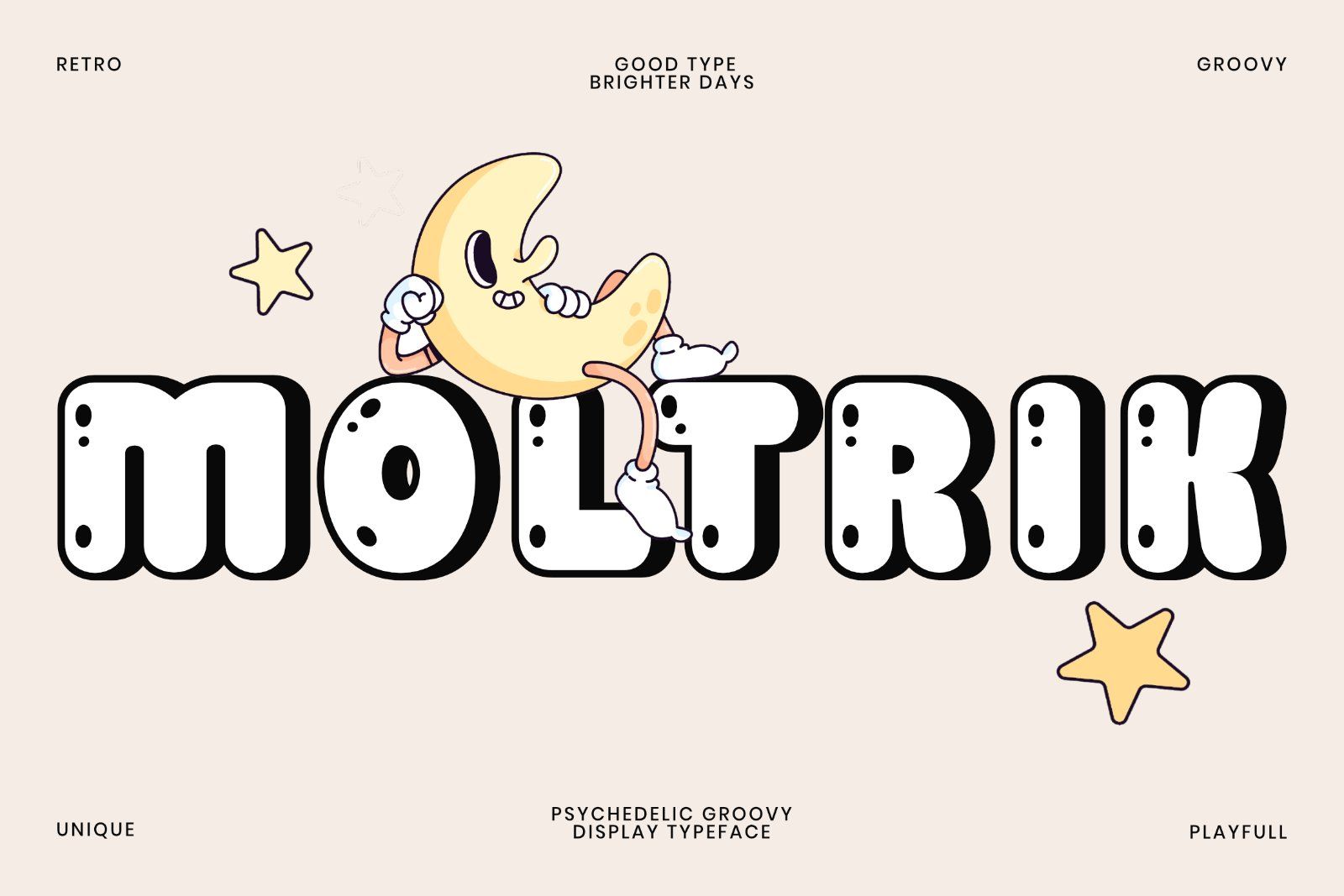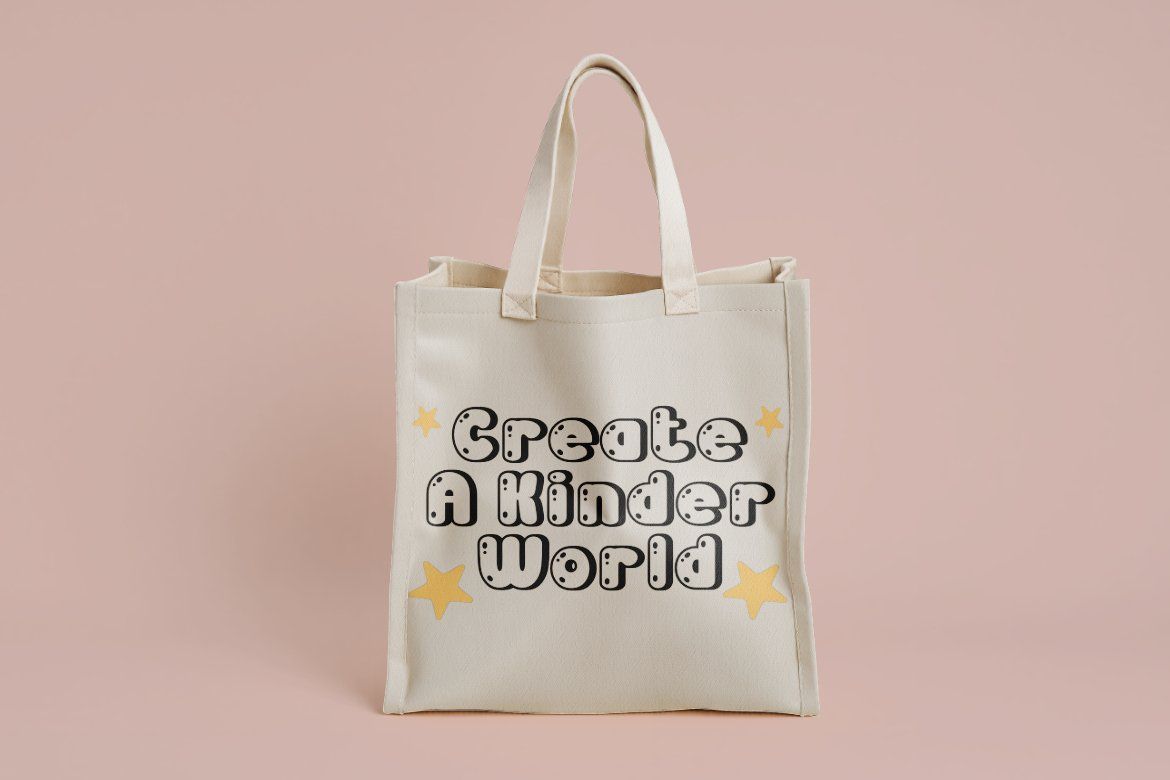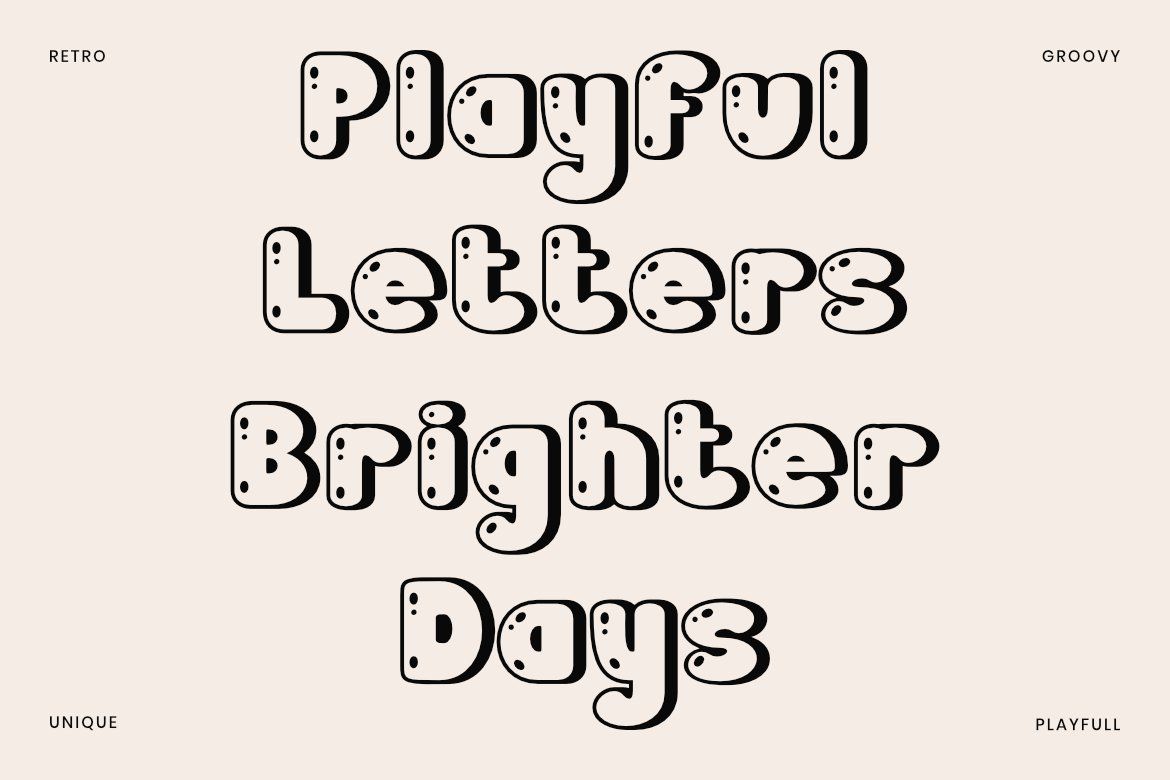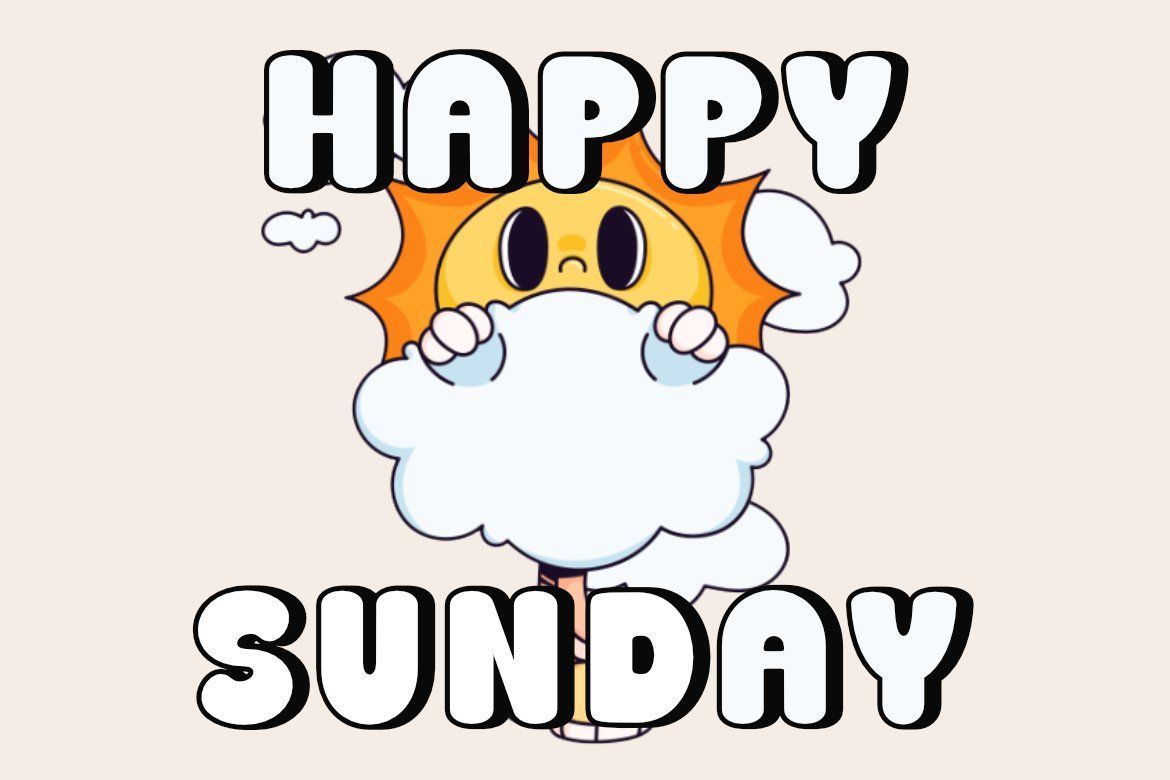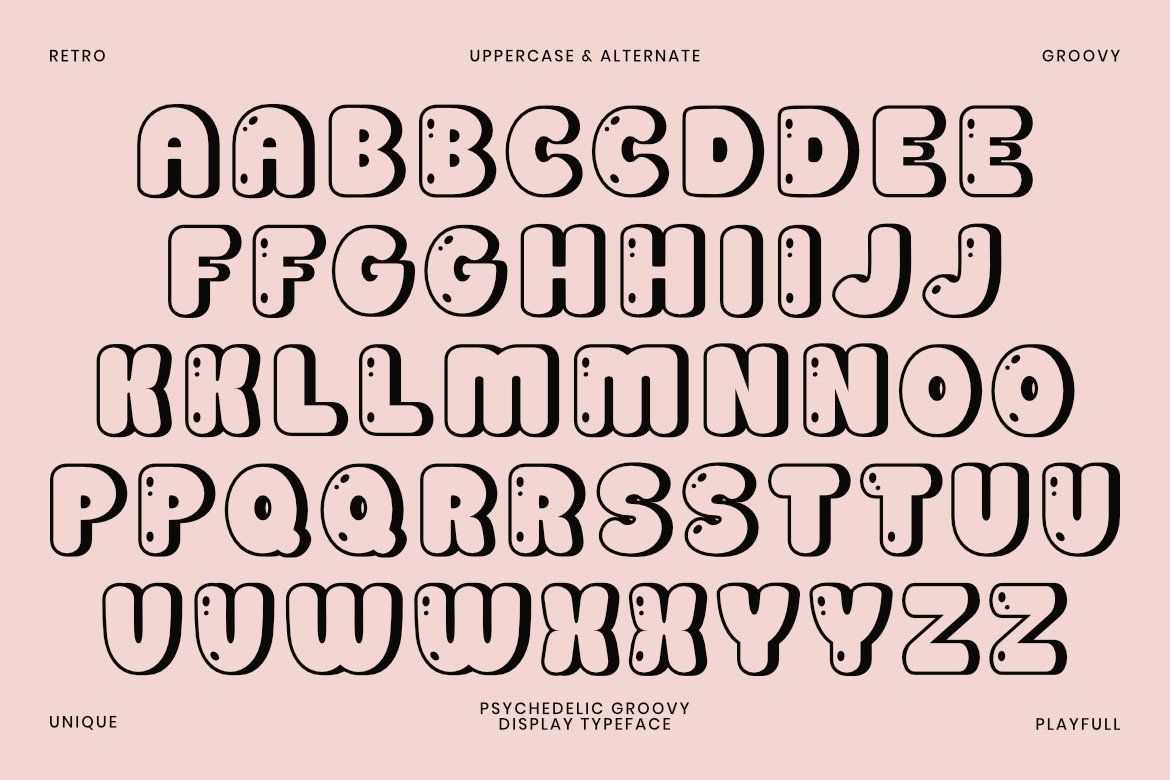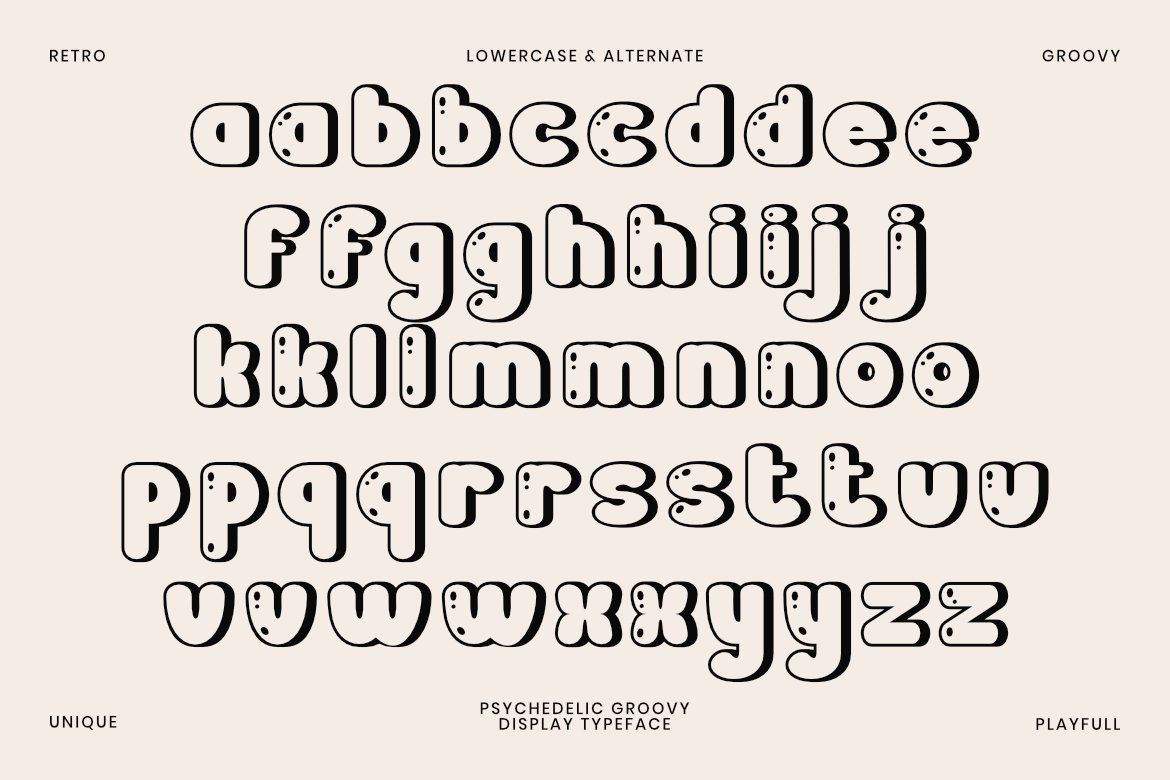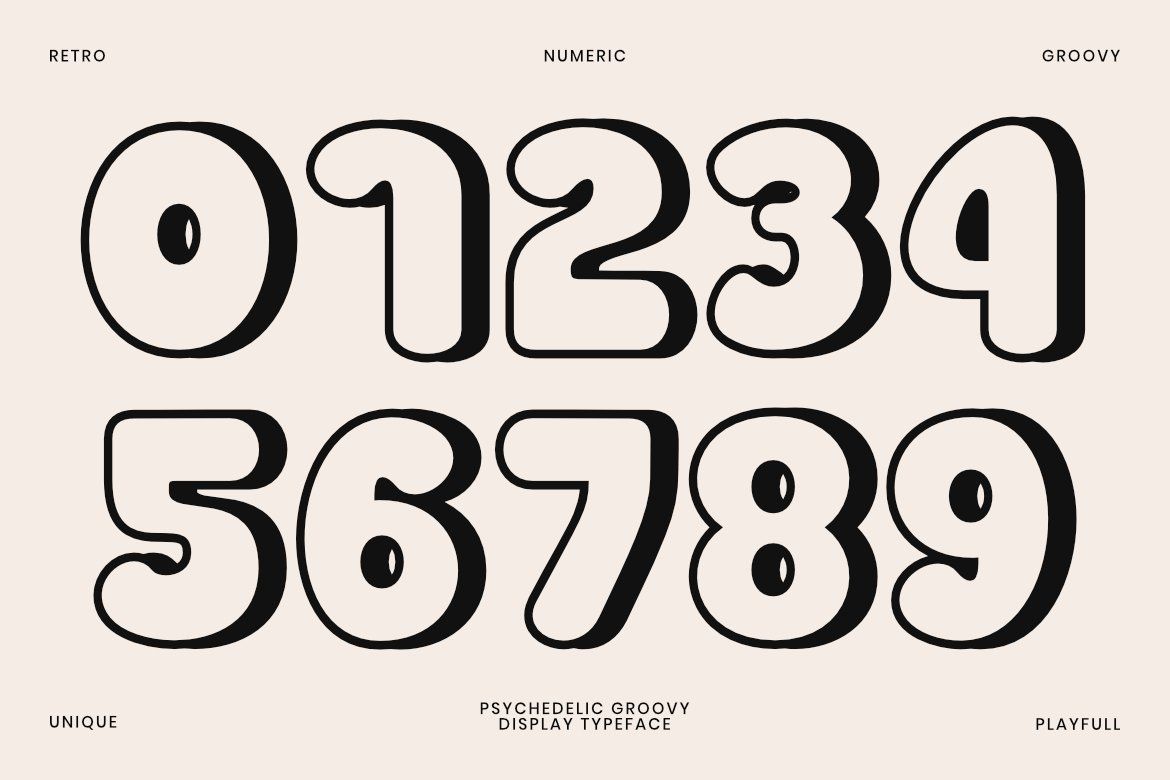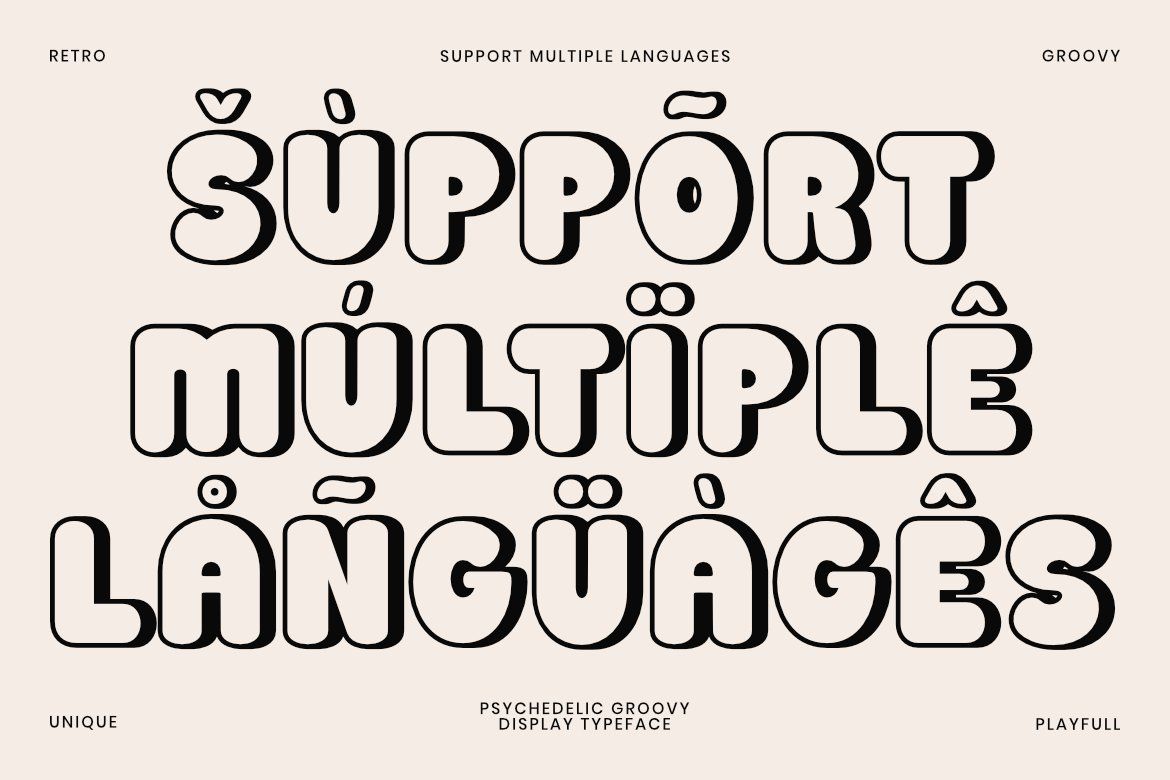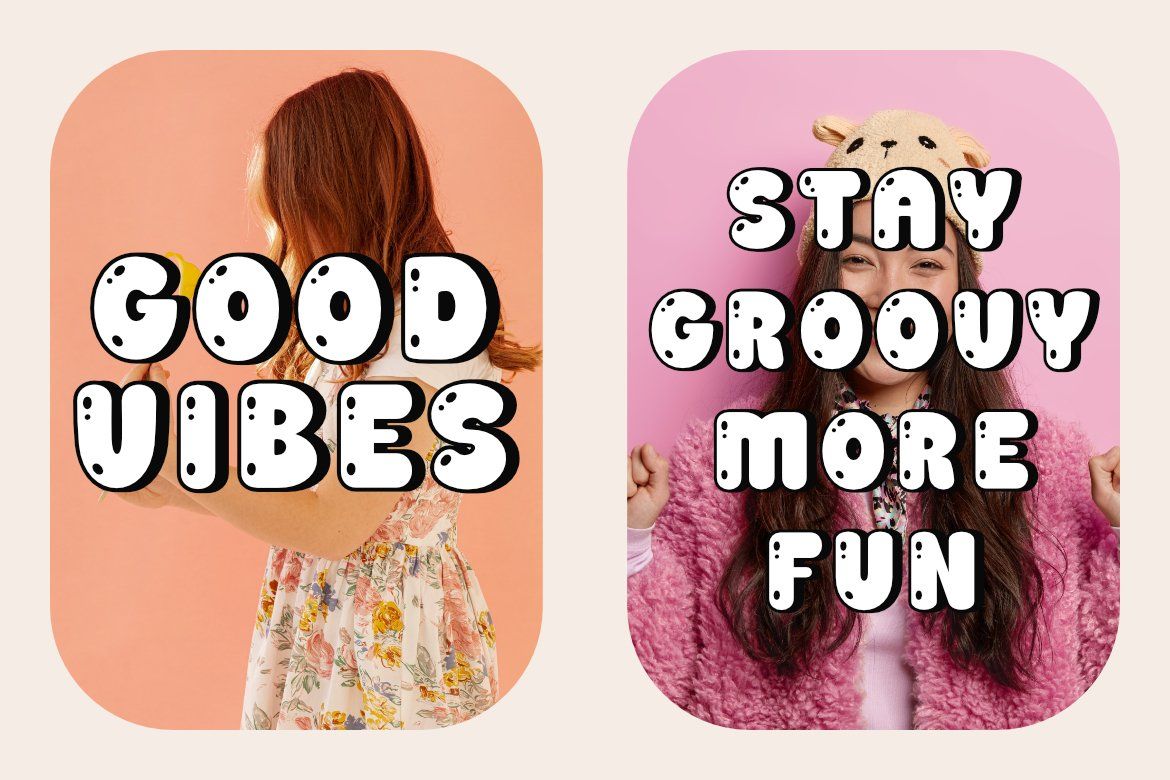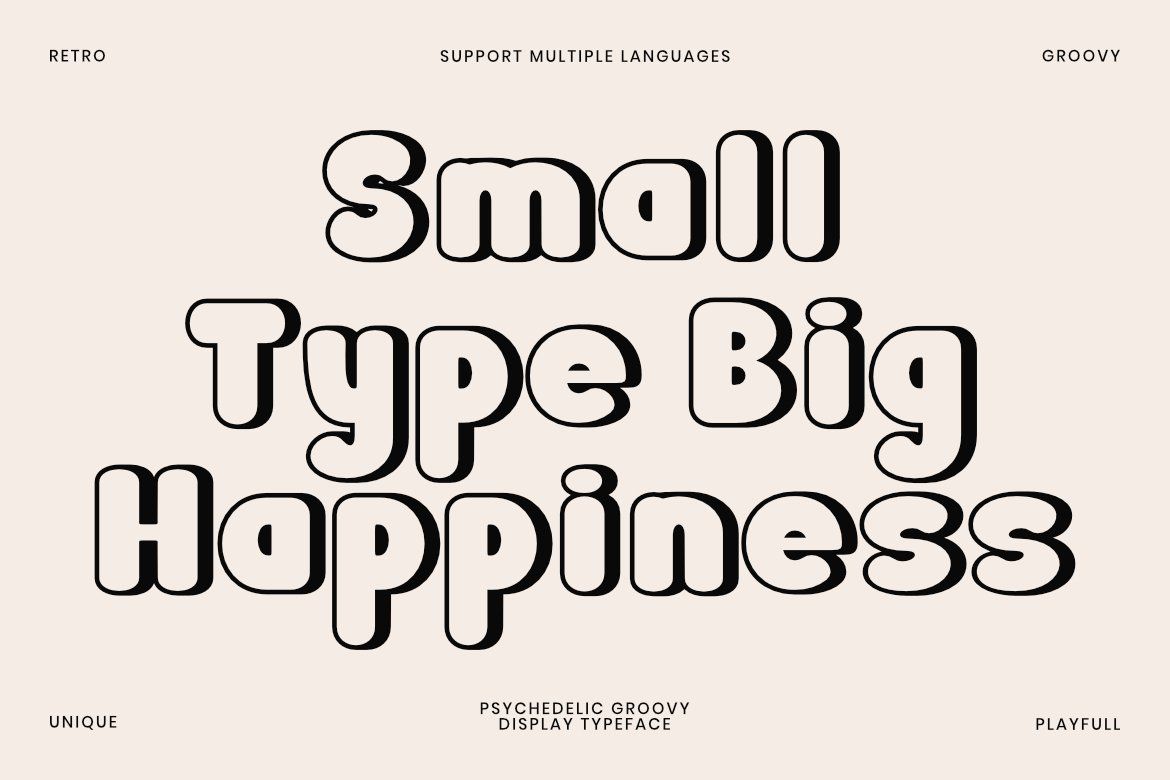
MOLTRIK is a playful psychedelic display typeface inspired by the colorful energy of retro design, groovy lettering, and expressive typography.
Featuring bold rounded forms, soft curves, playful details, and a distinctive bubbly appearance, MOLTRIK brings a fun and energetic personality to every creative project. Its nostalgic character combines a vintage-inspired aesthetic with a fresh contemporary feel.
MOLTRIK is designed to stand out and works beautifully for retro branding, psychedelic posters, T-shirt designs, stickers, packaging, children's products, social media graphics, album artwork, invitations, merchandise, and playful visual identities.
The typeface includes uppercase and lowercase characters, alternate characters, numbers, punctuation, and multilingual support, giving designers plenty of flexibility to create unique typographic compositions.
• Retro branding
• Psychedelic posters
• Groovy designs
• T-shirt graphics
• Apparel & merchandise
• Sticker designs
• Packaging
• Children's products
• Social media artwork
• Album covers
• Event posters
• Logo design
• Editorial graphics
• Greeting cards
• Creative campaigns
With its bold, rounded, funky, and nostalgic personality, MOLTRIK is made for designs that need to feel joyful, expressive, playful, and unmistakably retro.